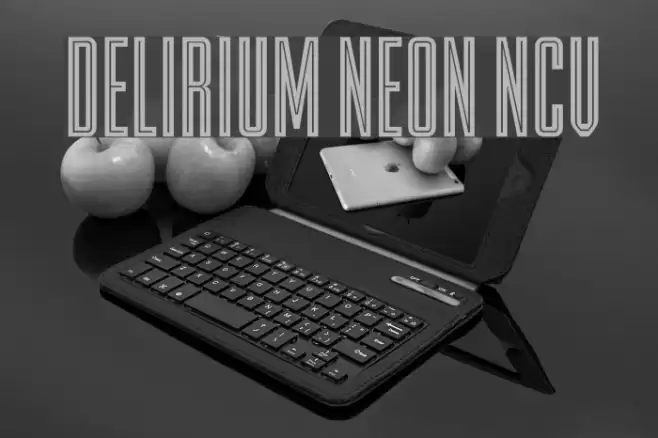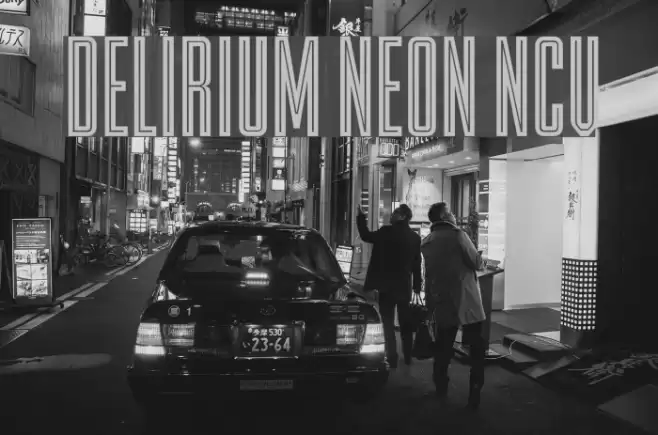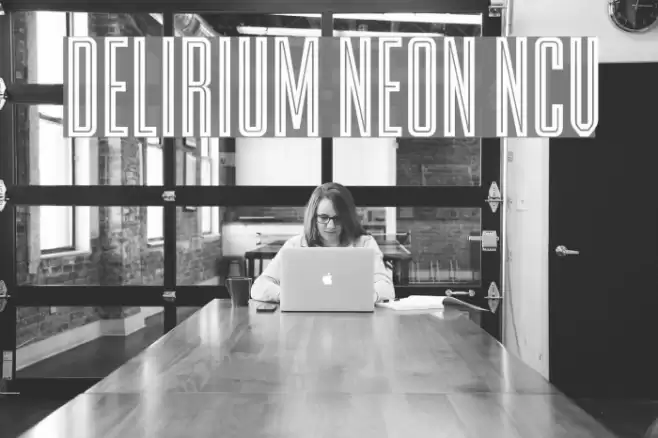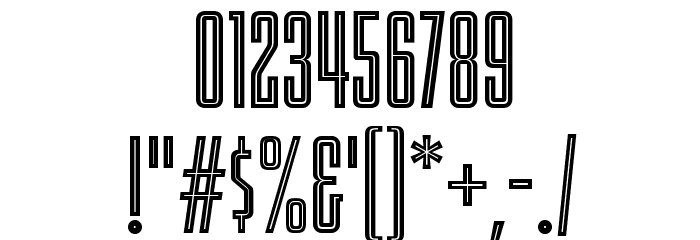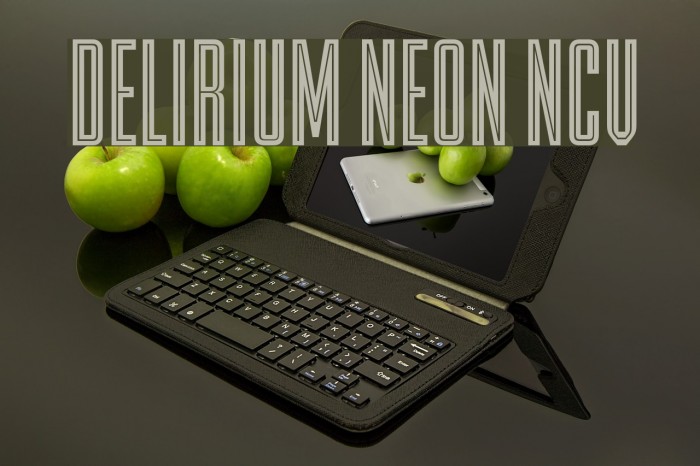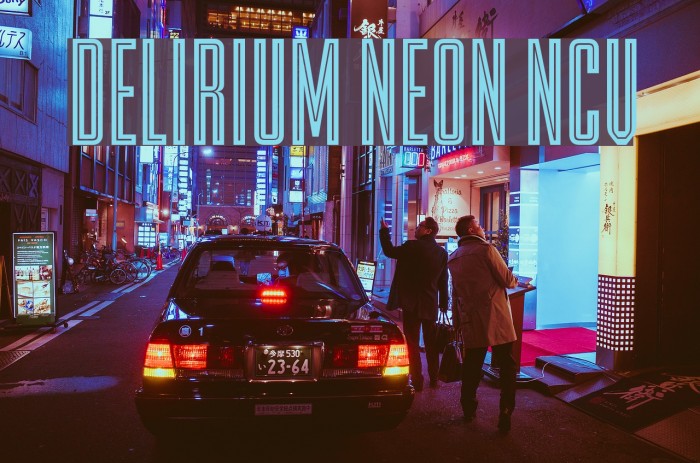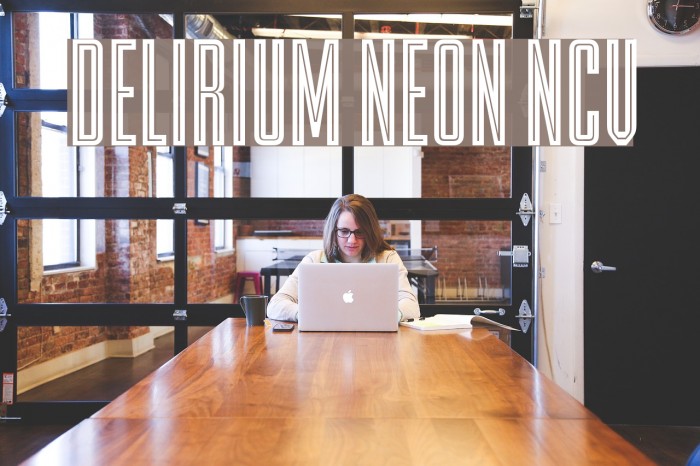
DELIRIUM NEON NCV Font
DELIRIUM NEON NCV Description
This font features a bold, geometric design with a distinct outline style that gives it a neon-like appearance. The uppercase letters are tall and narrow, with sharp angles and clean lines, creating a modern and futuristic look. The numbers and special characters maintain this aesthetic, ensuring consistency across all glyphs. The font's design is highly decorative, making it ideal for eye-catching displays and signage. Its structured form and high contrast between the strokes and the background enhance its visibility, making it suitable for both digital and print media.
A bold, geometric outline font with a modern, neon-like appearance from athletic fonts.
- Proposed Projects: Ideal for neon signs, futuristic branding, digital displays, and eye-catching posters.
- Use Case: Headlines, Logos, Signage